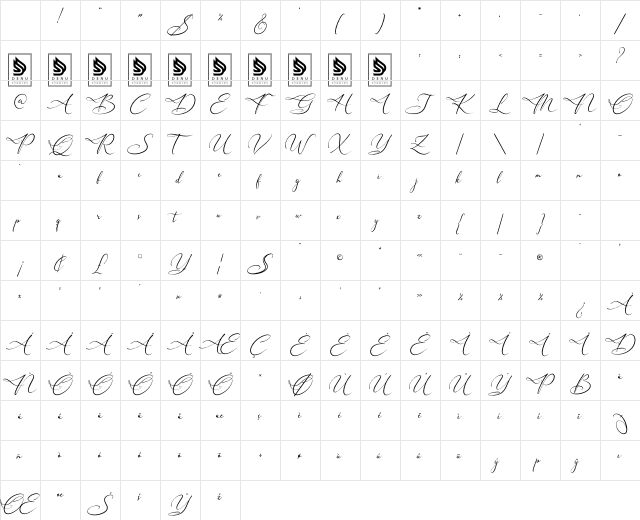
Balinesty is a composed and adaptable typeface that performs quietly and consistently across a wide range of design contexts.
Pro Tip: Use Balinesty in both headline and body roles to test its range before committing to a single application.